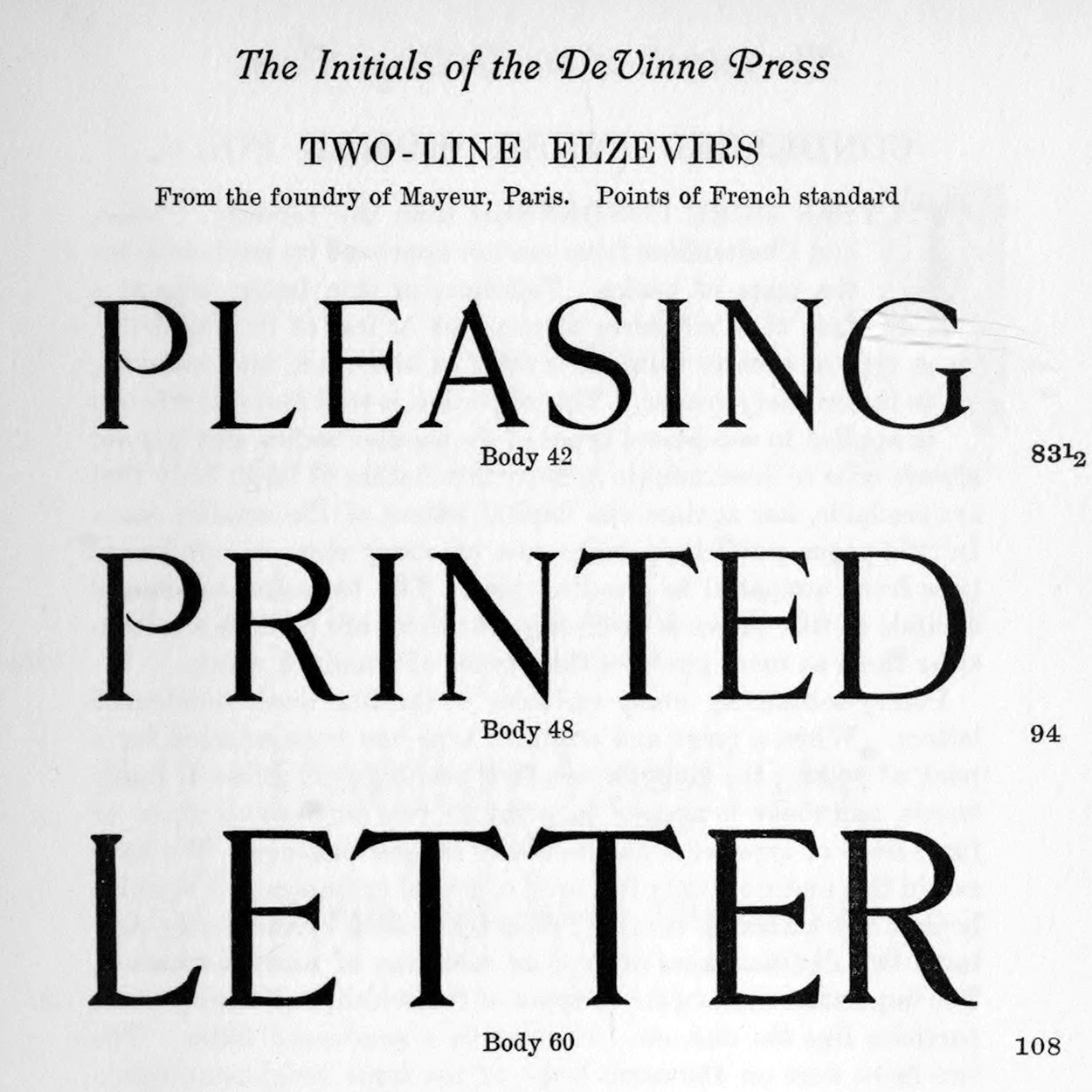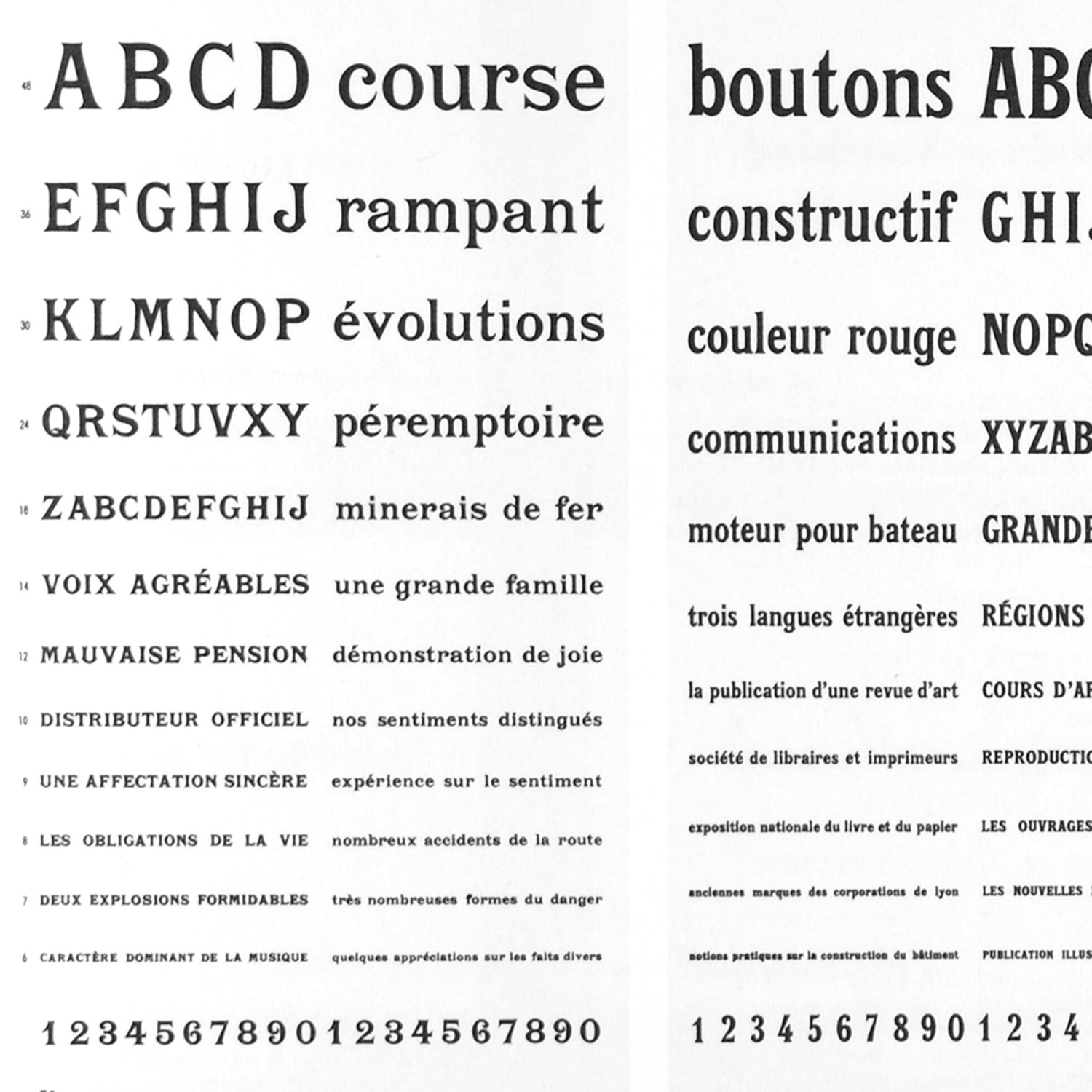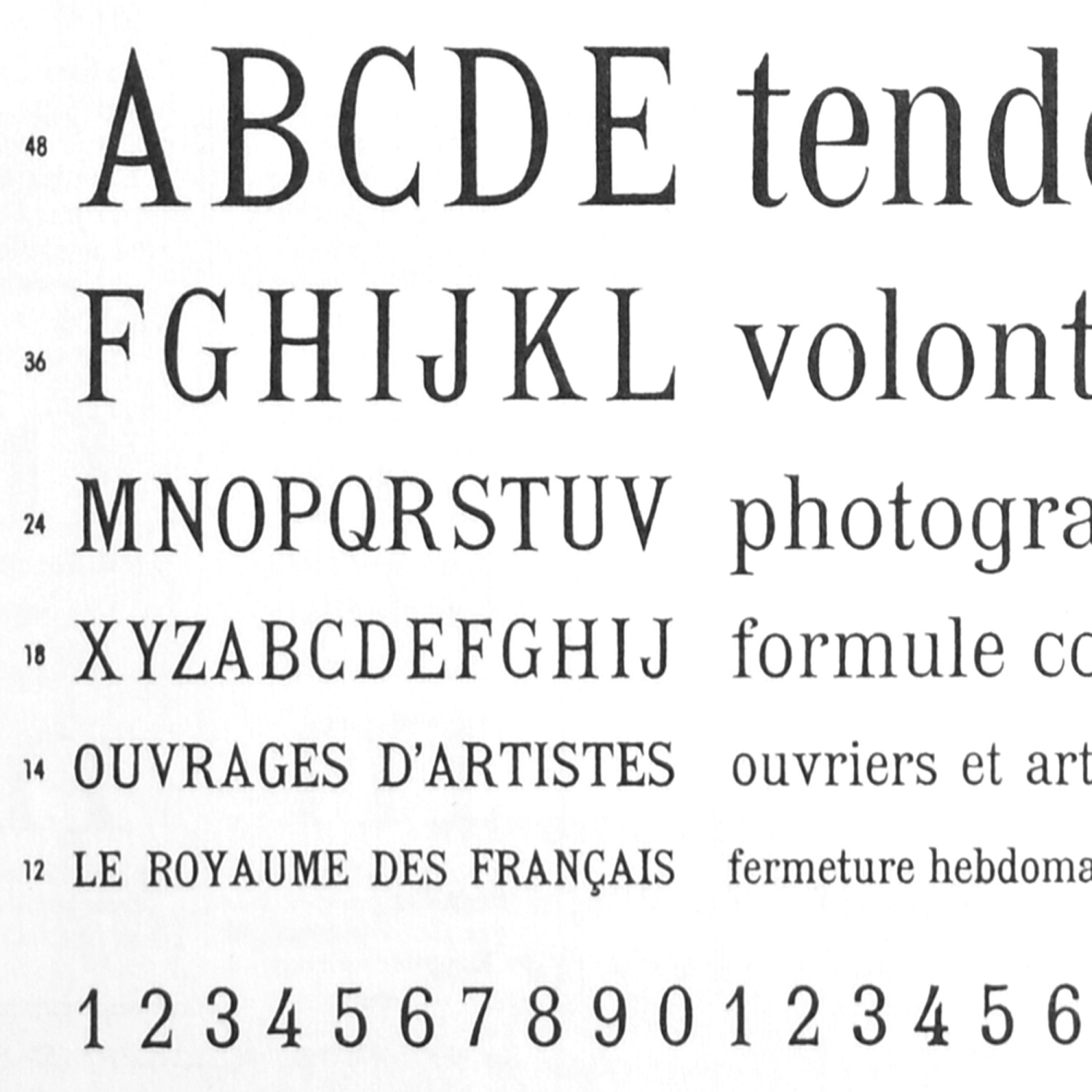
Marlide Display is a flamboyant and vibrant typeface evocative of a transitional roman or Latin design with elegant roundly bracketed serifs and a considerable thick to thin contrast. The letterforms are condensed and embrace both, curves and pointed elements that create an interlocking rhythm with a lively texture. The letter inspiration goes back to a late nineteenth century type form, in turn derived from inscriptions of Roman Antiquity and the neo-Renaissance period. During the era of La Belle Époque and Art Nouveau, numerous variations of Latins with embellished details, such as letters and tails curling inward were in high demand. Traditionally only a few historic Latins had sloping companions, and with varying stroke contrast ranged in use from jobbing and headline to text faces. During the late 1970s and with phototype tools, typefaces in this genre became popular again for a few years before the onset of desktop publishing. Editorial and ad typographic tendencies during this era and in the US, manifested themselves in sleekness and lavish forms.
Marlide Display aims to exercise restraint by going all out on curves yet attempting to control excessiveness and amplification. It is a type that shines in large letter sizes with a suitable weight range, figures for titling and text integration in larger size type, unique arrow designs and a small set of charming ornaments for frames and repeat-patters. Most apt in display, integrated in applications such as logotypes, headlines and many more to make any design stand out and prominently convey messages for print and screen alike.